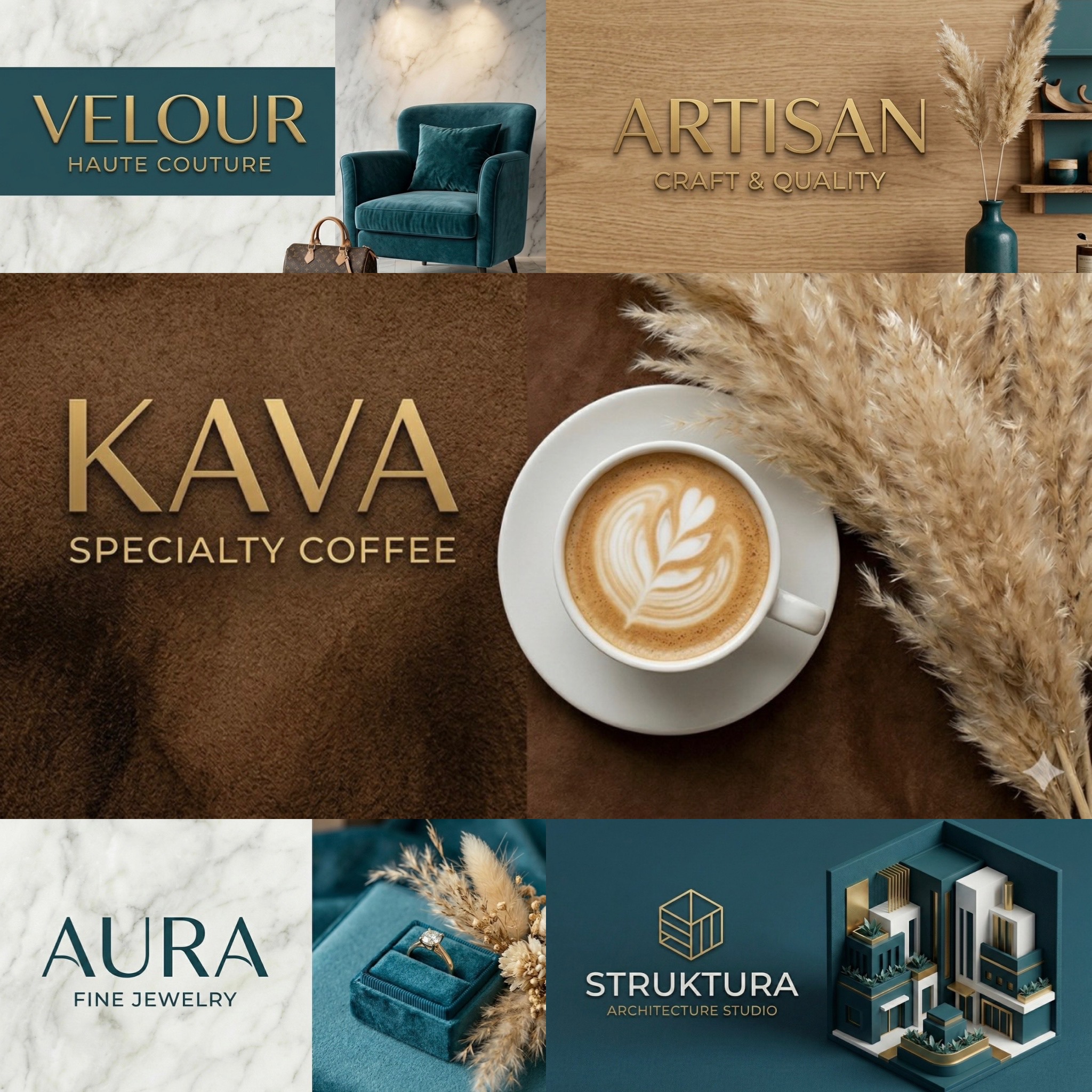
This case presents logos where typography plays the main role. Working on such projects requires special attention to detail: letter spacing, line thickness, and font character. This is the perfect solution for brands that want to appear prestigious, concise, and recognizable without unnecessary graphic elements.
Styles and solutions:
• Minimalism and High Fashion: (The Minimalist, Elara, Velvet) — using thin serifs and grotesques to create a premium image. Suitable for personal brands, boutiques, and magazines.
• Modern lifestyle: (Bloom & Berry, Serenity) — soft, organic fonts that convey coziness, naturalness, and tranquility.
• Geometric clarity: (Vanguard) — strict, massive shapes that emphasize the strength and stability of the company.
Each logo is a balance between readability and unique visual rhythm.